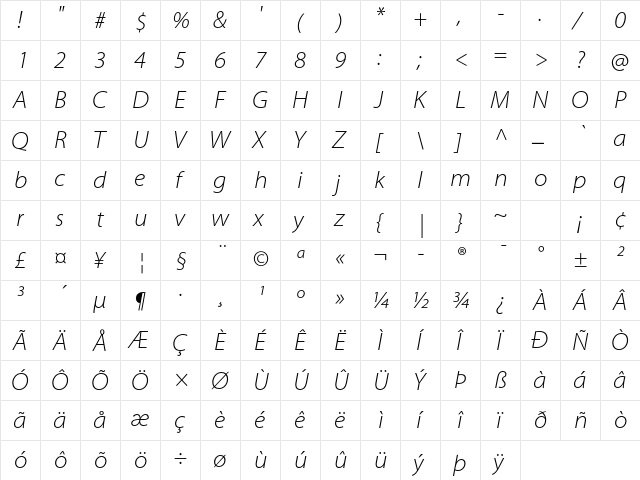
Myriad Pro Light SemiExtended Italic
| Designer | Robert Slimbach and Carol Twombly |
Design Context for Myriad Pro Typeface
Myriad Pro is a composed and adaptable typeface that performs quietly and consistently across a wide range of design contexts. The slanted form adds forward momentum and visual energy. The delicate stroke weight brings airiness and refinement to layouts.
Pro Tip: Try Myriad Pro for annotation and caption copy alongside an upright companion — the contrast in angle creates a dynamic but ordered typographic system.